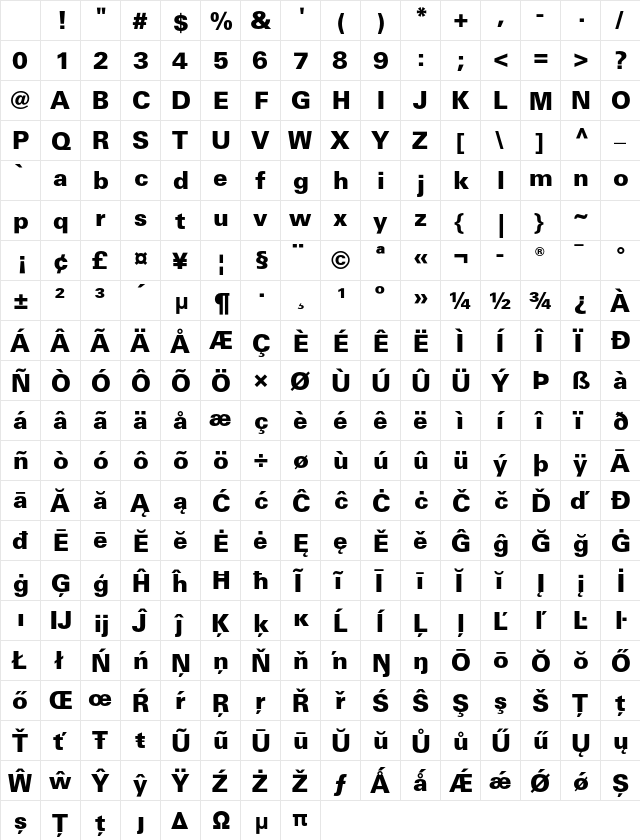
Complete Univers LT W0475 Bold glyph index. Displaying only characters natively supported by Univers LT W0475 Bold font.
Univers LT W0475 is a composed and adaptable typeface that performs quietly and consistently across a wide range of design contexts. Its bold stroke weight gives it real presence on the page.